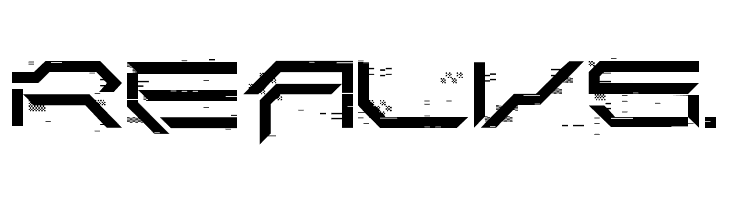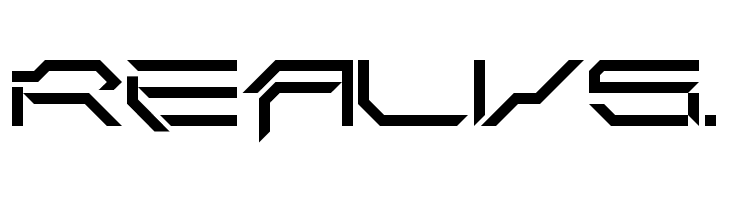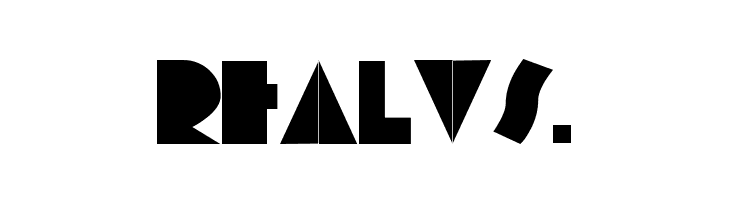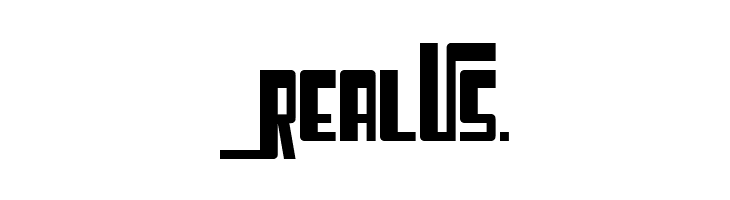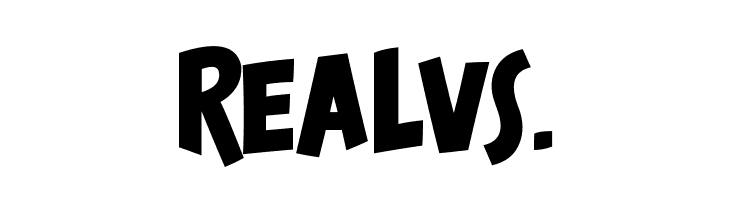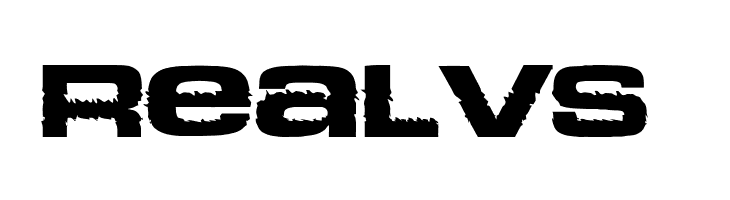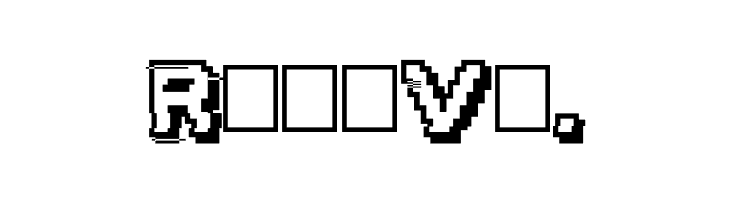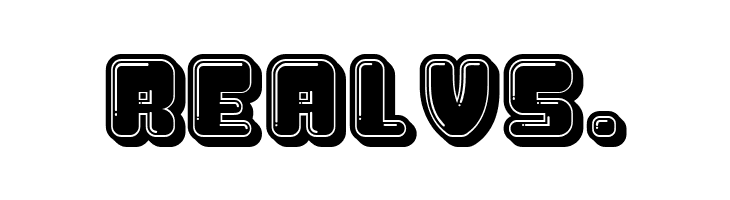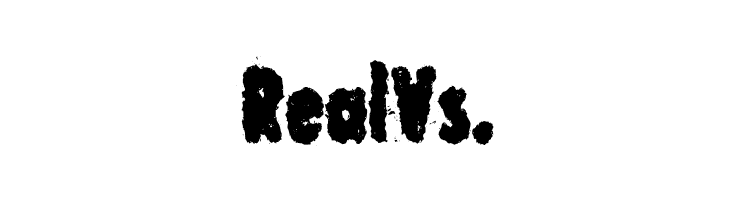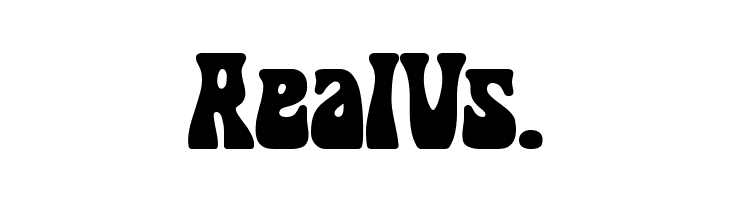
A bold, playful font with a distressed texture and climbing figures integrated into the design.
A playful, hand-drawn font with a casual, whimsical style.
A bold, distressed font with a grungy, textured appearance.
A bold, pixelated font with a retro, digital aesthetic.
A playful, distorted font with quirky, energetic characters.
A futuristic, angular font with a digital, high-tech appearance.
A futuristic, glitch-inspired font with angular, geometric letterforms.
A bold, geometric font with sharp angles and solid shapes.
A glitchy, distorted font with a digital error aesthetic.
A bold, decorative font with a three-dimensional effect and thick outlines.
A playful, hand-drawn font with quirky letterforms and smiley face characters.
A bold, distressed font with a grunge texture and wide, condensed characters.
A bold, retro-inspired font with thick, rounded strokes and a playful, cartoonish style.
A bold, pixelated font with a retro, digital aesthetic.
A bold, playful font with a futuristic and dynamic style.
A bold, geometric font with a futuristic and edgy style.
A whimsical, decorative font with cosmic motifs in each character.
A bold, angular font with a futuristic and edgy design.
A playful, whimsical script font with smooth, flowing cursive letters.
A bold, rounded font with playful and dynamic letterforms.
A playful, informal handwritten font with whimsical letterforms.
A bold, playful font with a hand-drawn, whimsical style and unique turtle graphics.
A futuristic, geometric font with rounded edges and a bold style.
A bold, futuristic font with geometric shapes and sharp angles.
A modern serif font with elegant, sharp lines and balanced proportions.
A modern, sans-serif font with clean lines and consistent stroke width.